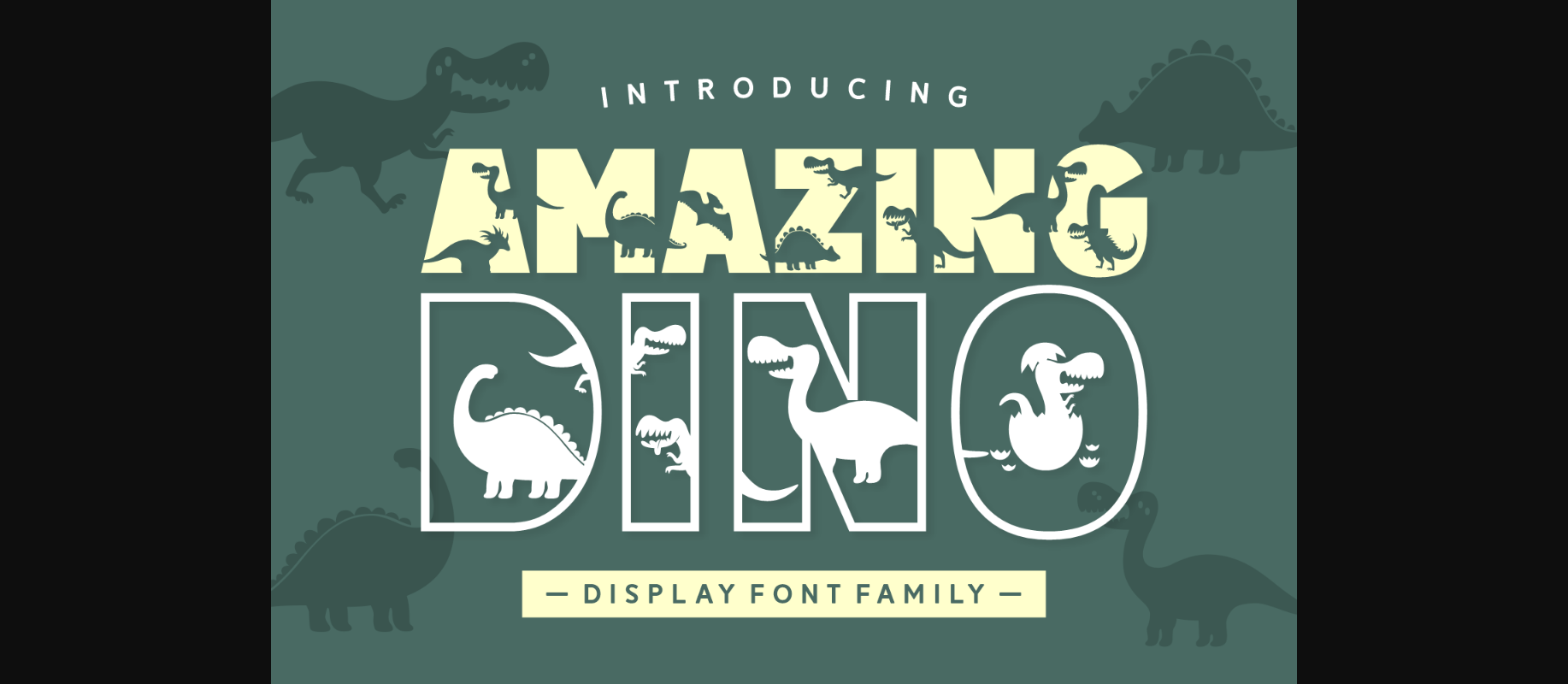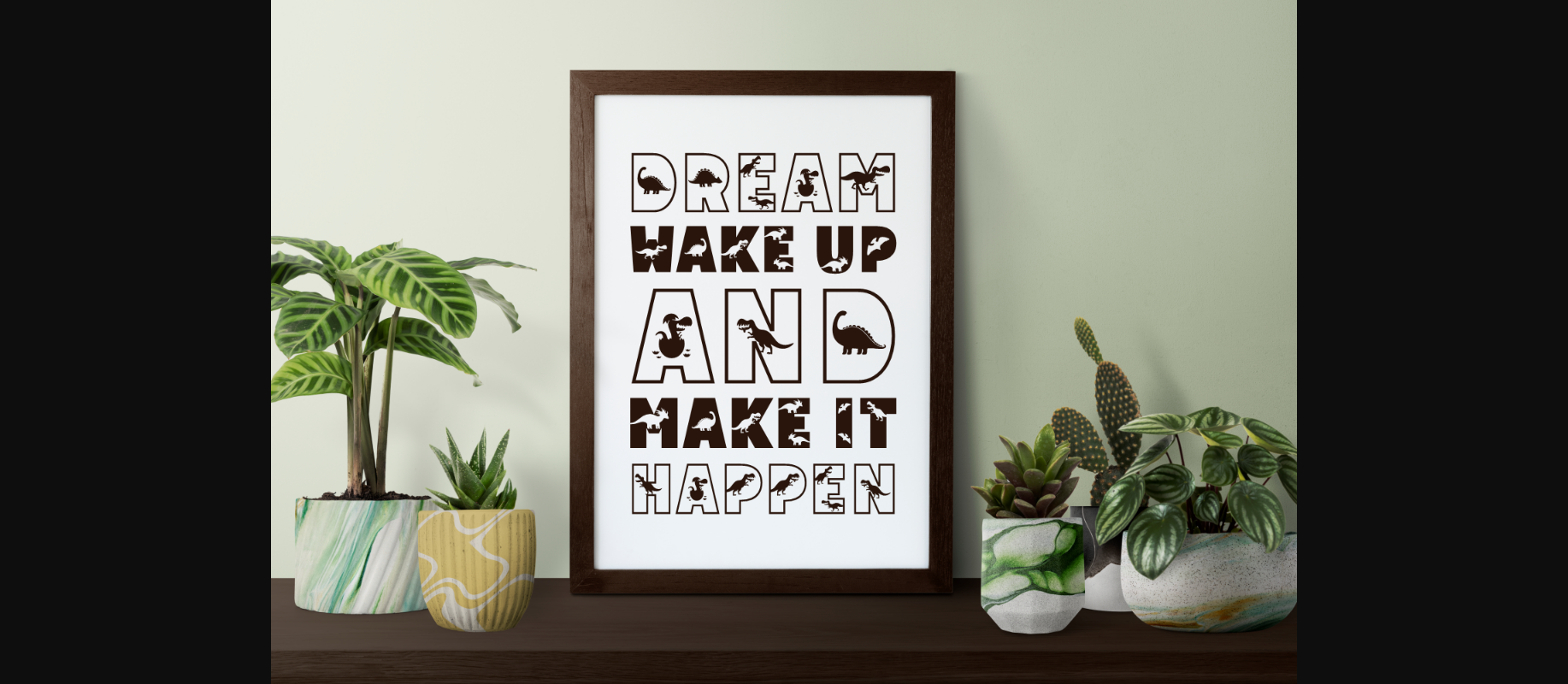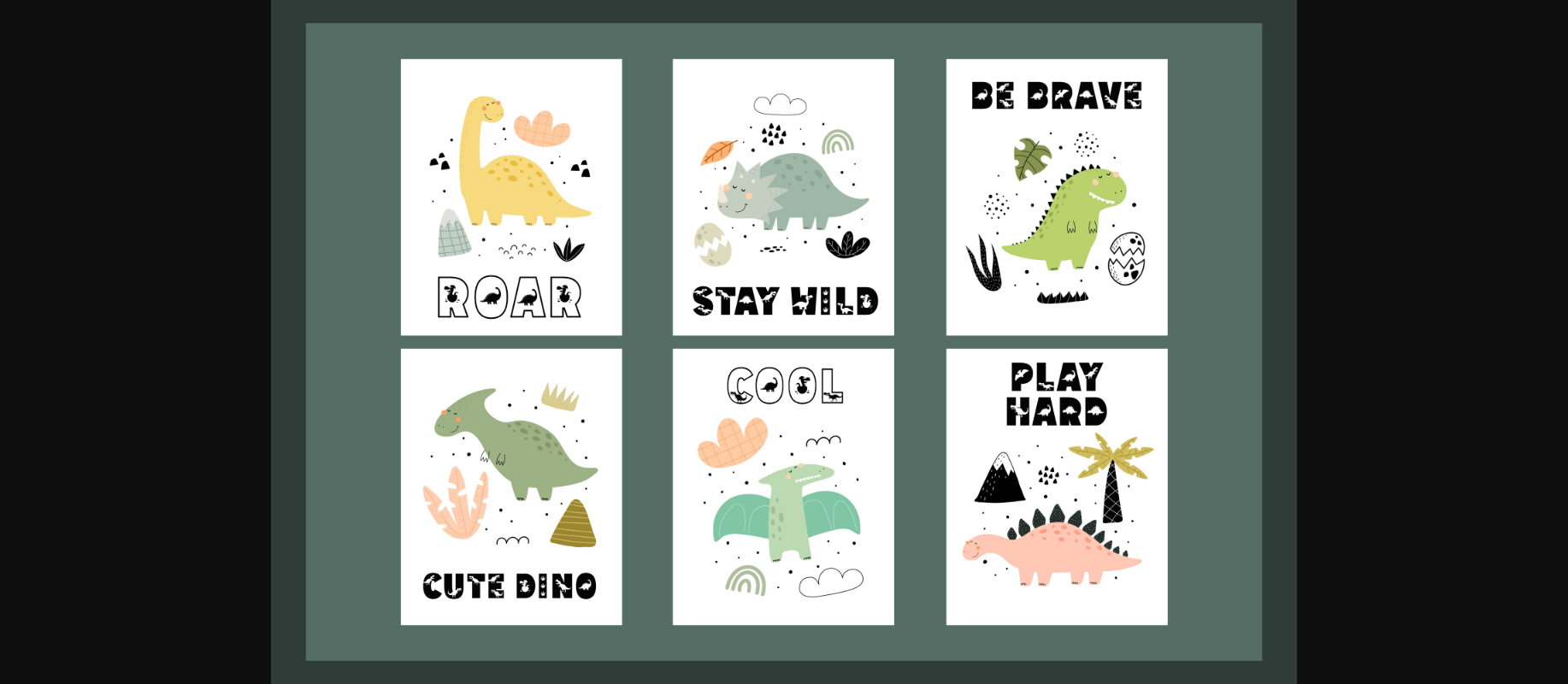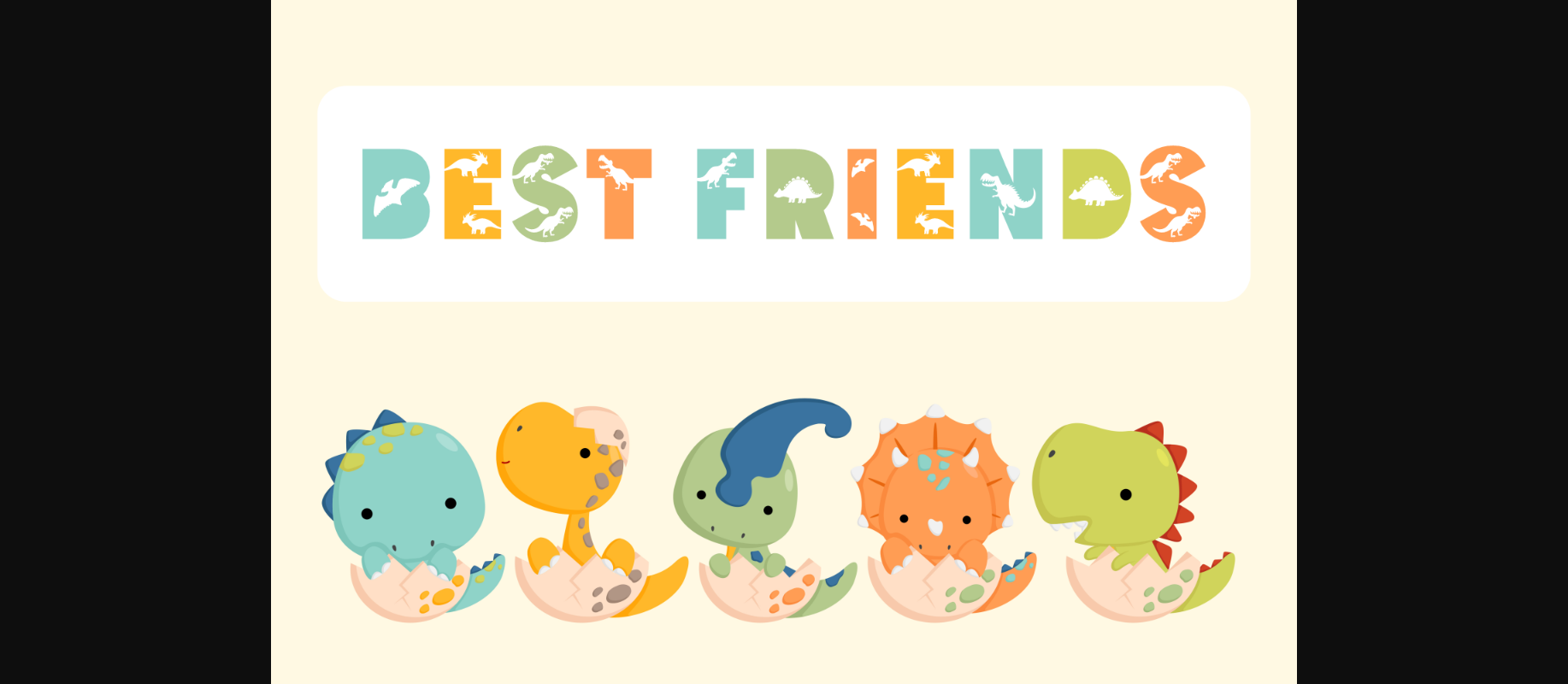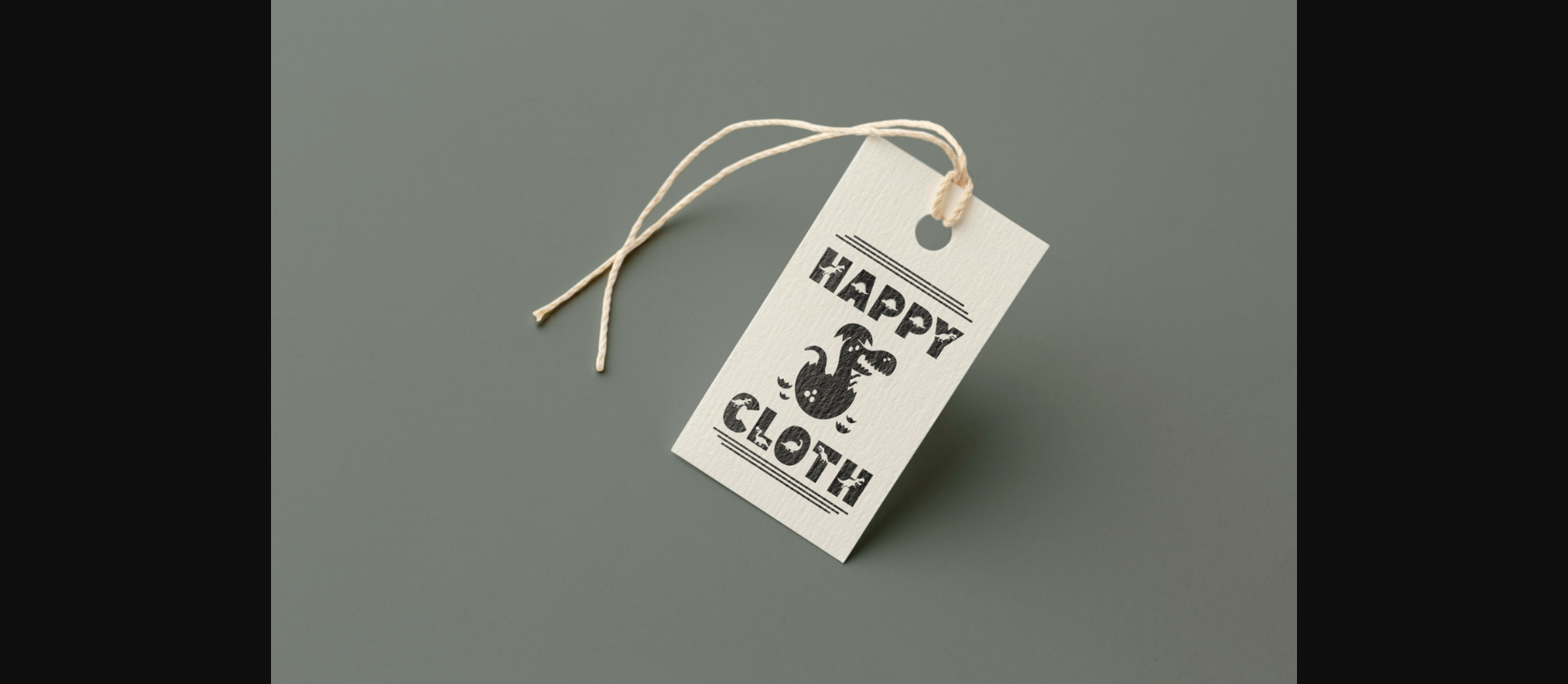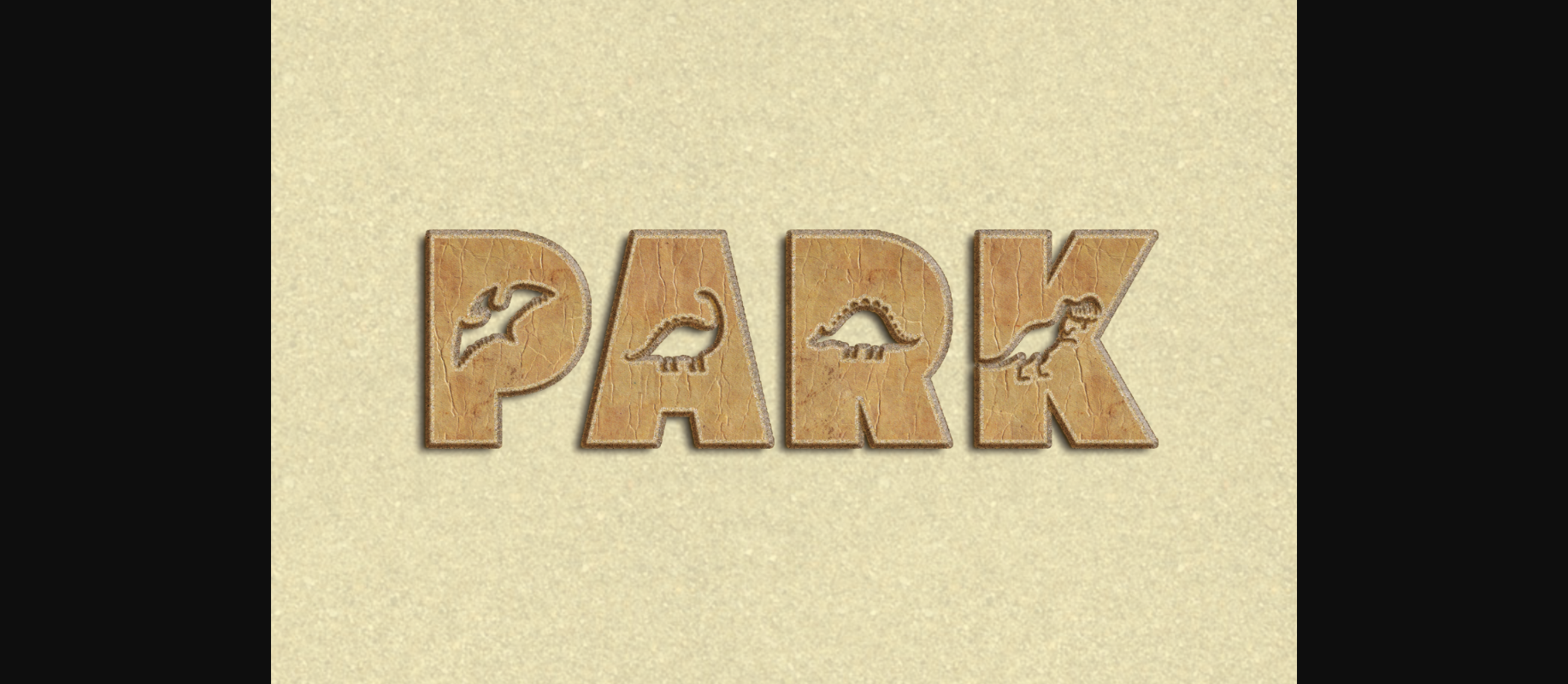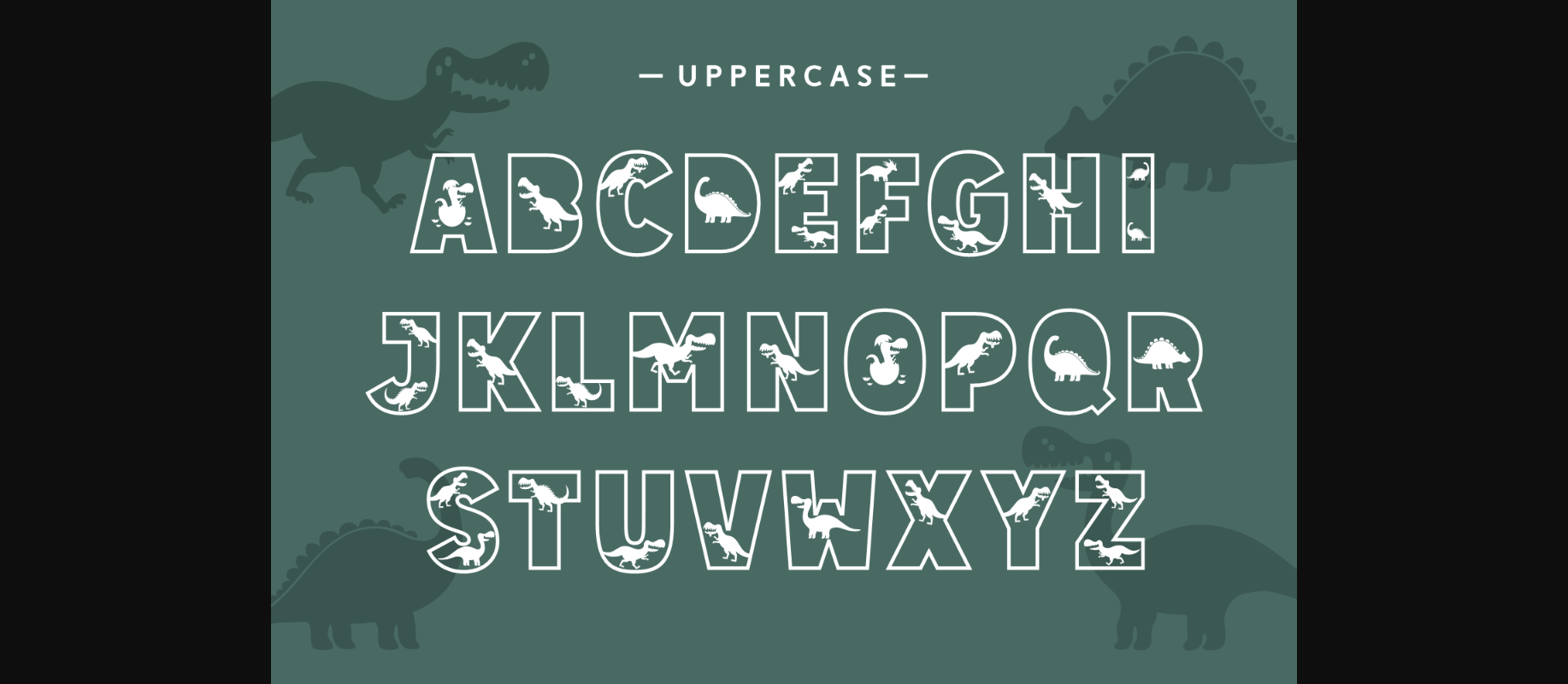
Amazing Dino Font
About Amazing Dino Font
Amazing Dino is an adorable decorative font perfect for anyone passionate about the Mesozoic Era! Playful, unique, and inviting, this font is sure to get the kids and adults equally excited!